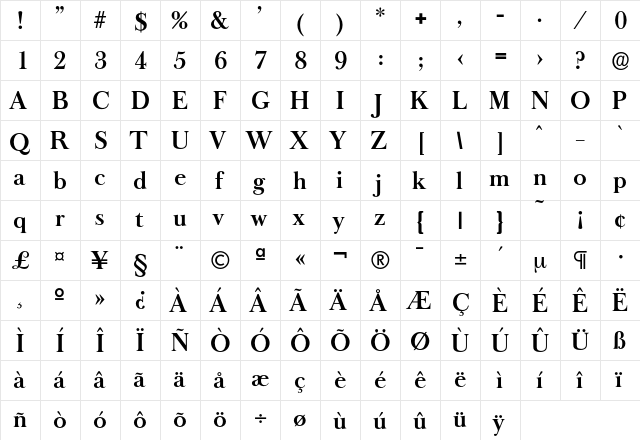
Oldbaskerville-DemiBold Regular
Design Context for Oldbaskerville-DemiBold Typeface
Oldbaskerville-DemiBold takes a measured approach to typography — its balanced proportions and neutral character make it a reliable workhorse for both digital and print work. Its bold stroke weight gives it real presence on the page.